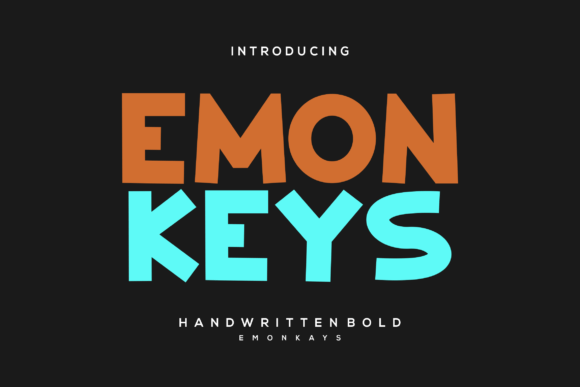
Behold Emonkeys Font, a sans serif font family that bursts with personality and charm!
Unleash your creativity with this playful and friendly font, meticulously crafted by the talented kalingga.albert. Each letterform in Emonkeys dances with energy, adding a touch of whimsy and delight to your designs.
Say goodbye to monotonous typography and embrace the fun side of fonts with Emonkeys. Its energetic strokes and bouncy curves will instantly captivate your audience, leaving a lasting impression that sets your brand apart.
Whether you're designing logos, posters, social media graphics, or website headings, Emonkeys is your go-to font for injecting a dose of personality and playfulness. Its versatility knows no bounds, making it a perfect choice for a wide range of projects.
With Emonkeys, you'll discover a world of creative possibilities, where your imagination takes center stage. Let your designs shine with a unique character that resonates with your audience on an emotional level.
Don't miss this chance to elevate your design game. Embrace the magic of Emonkeys Font today and embark on a journey of creativity where the ordinary becomes extraordinary!